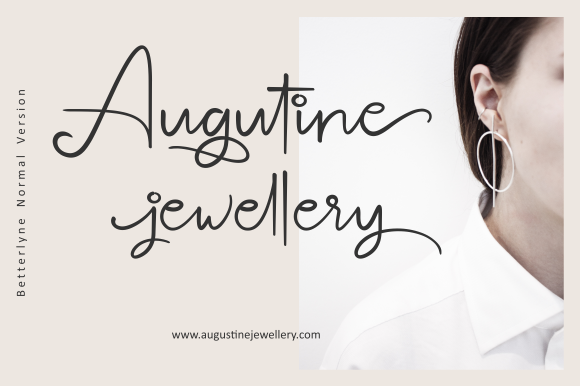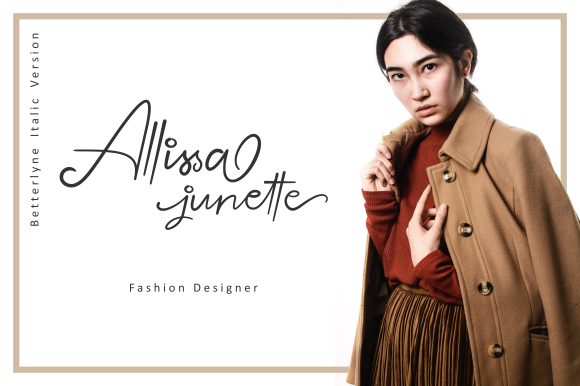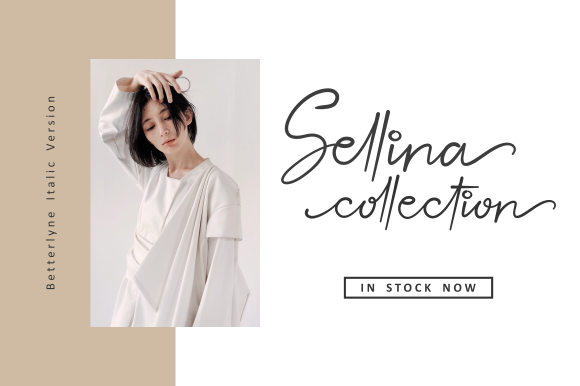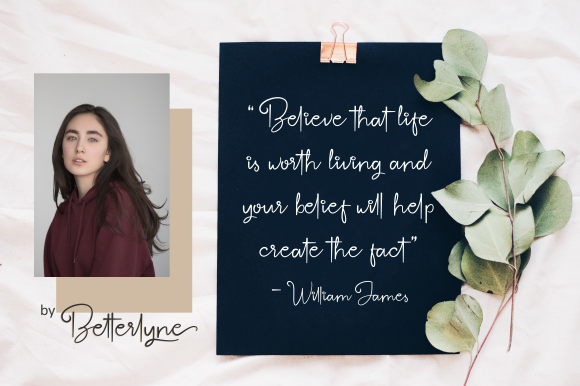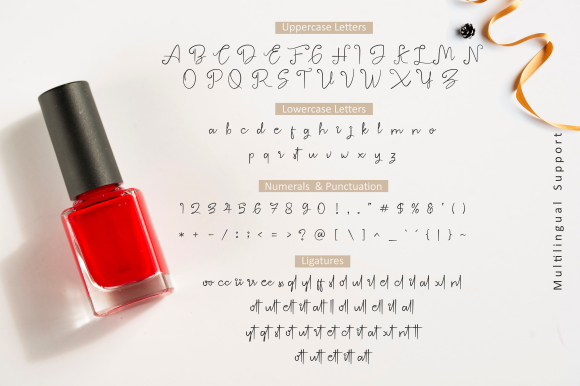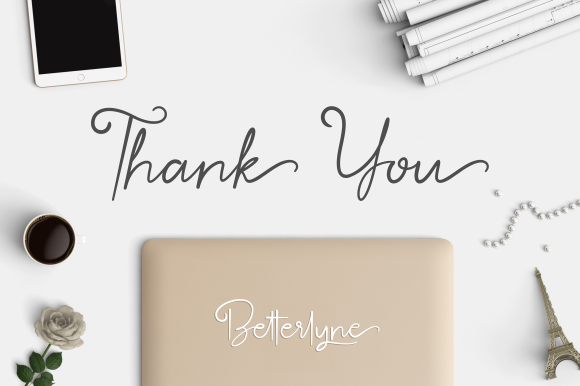
About Betterlyne Script Font
The Betterlyne is a modern and elegant font with a lot of stylistic alternates for your beautiful project. It was made carefully so that each letter could be connected well and elegantly either using alternate or not.
It includes start and ending swashes, and middle swashes for some letters. It’s very easy to use, just rely on your creativity!
It’s perfect for logos, name tags, short quotes, wedding invitations, greeting cards, and much more!